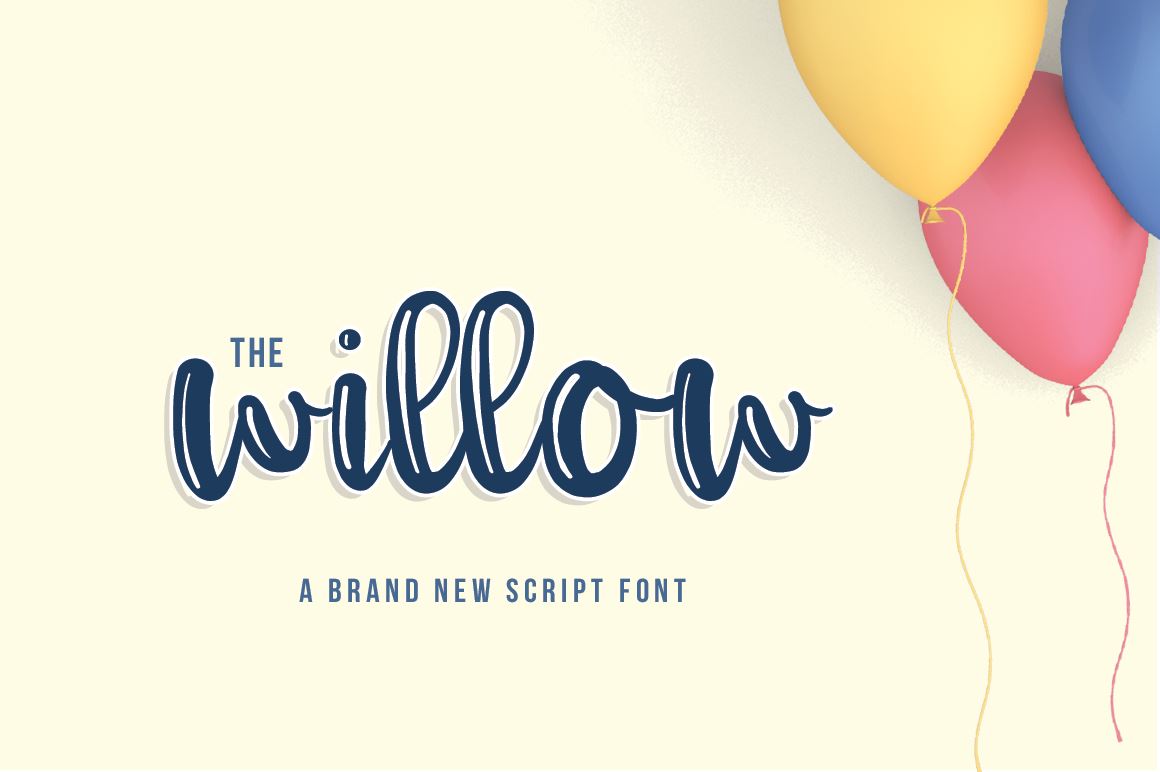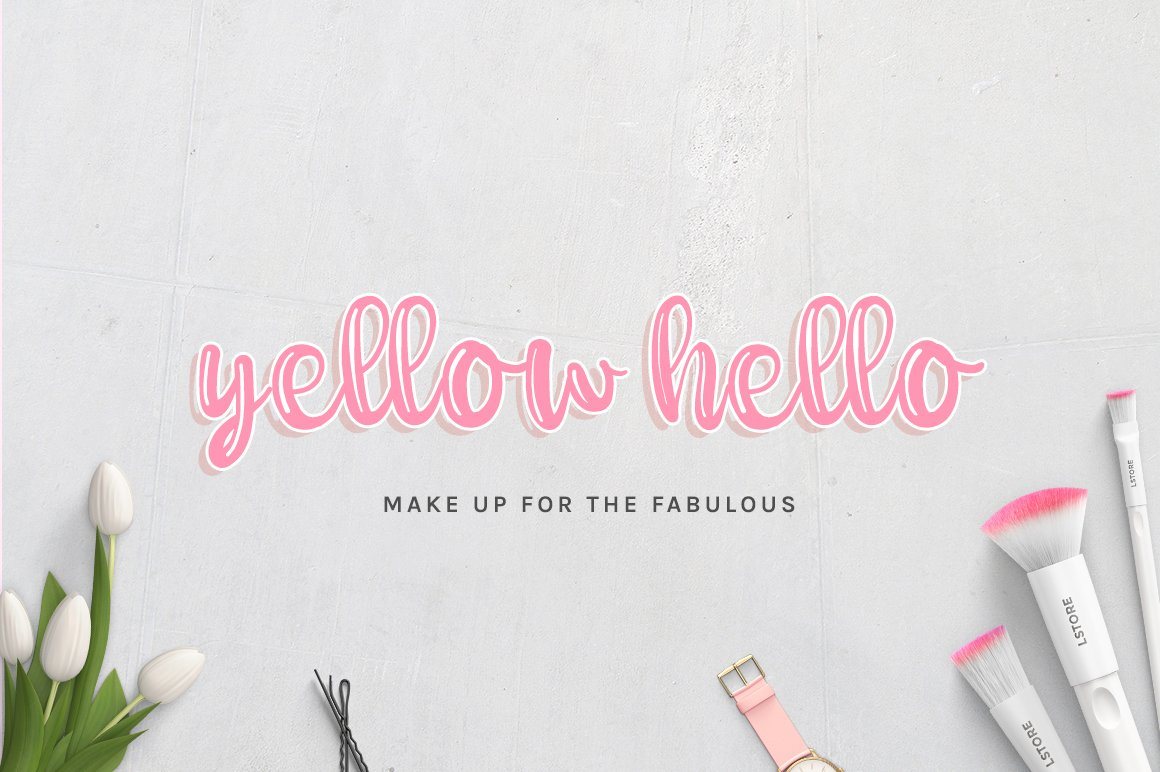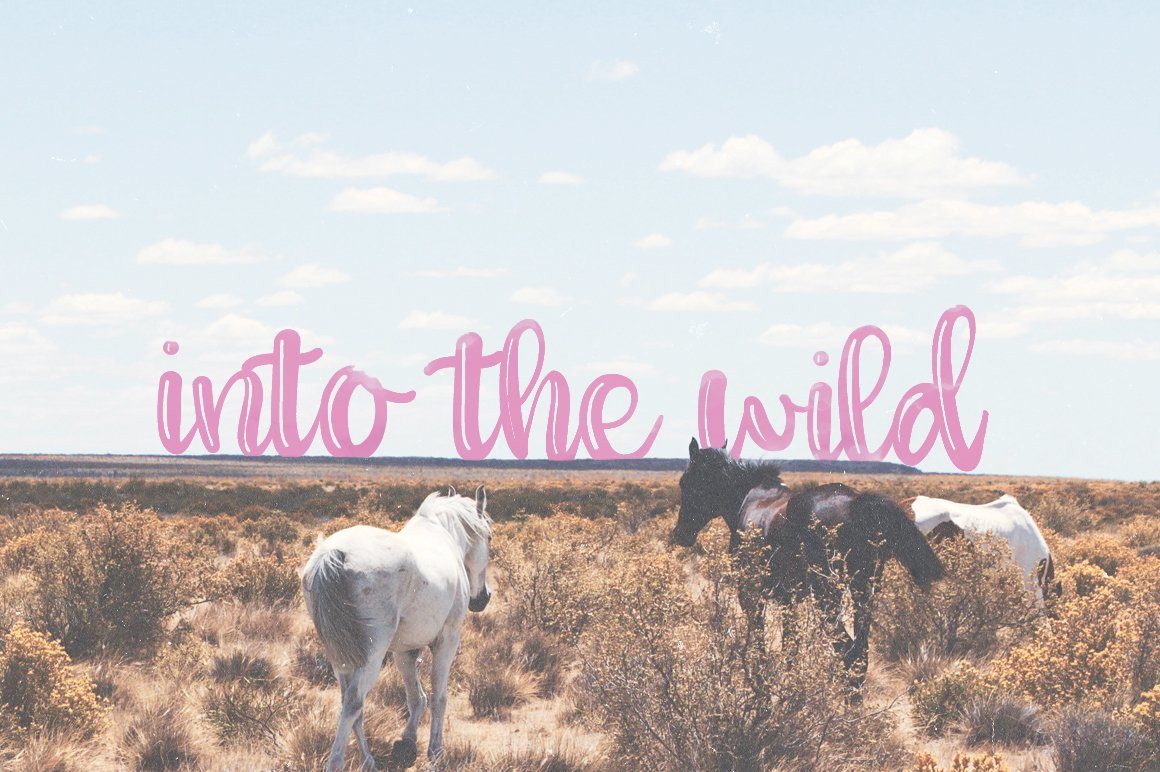
About A Willow Font
The Willow Script is a brand new thick curly script font, including a transparent shadow within each character. As well as a range of alternate characters and ligatures, that are 100% accessible to all. Available for both personal and commercial use. No extended license is required. Download and use The Willow Script for anything and everything. This font is 100% accessible to all, across all programs and includes over 100 different glyphs. WHATS INCLUDED? Willow.ttf Web fonts included (EOT, SVG, WOFF & WOFF2 Files) Download within a few clicks and use across a huge range of programs including Microsoft Word, Silhouette, Cricut, Photoshop, Illustrator and many more. If you have any questions at all, please don’t hesitate to get in contact with us.